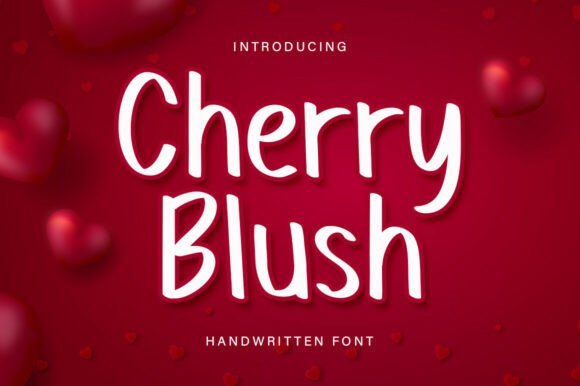
Love at First Sight: Discovering the Enchanting Cherry Blush Font
As a designer, have you ever stumbled upon a font that instantly sparks romance and whimsy? For me, that moment came when I laid eyes on the beautiful Cherry Blush Font. Its soft, rounded strokes and gentle lean immediately captured my heart, and I knew I had to learn more about this charming typeface.
The Cherry Blush Font is a delightful handwriting typeface designed to evoke the essence of romance and sweetness. Perfect for Valentine’s Day projects, feminine branding, and wedding stationery, this font provides a cozy, intimate feel that works beautifully on product packaging for bakeries or beauty brands. As a designer, the Cherry Blush Font is a valuable addition to your toolkit, allowing you to add a touch of love and whimsy to your designs.
Key Features of Cherry Blush Font
- Unique Characteristics: Whimsical, hand-drawn design with subtle texture and flair, perfect for feminine and vintage-themed projects
- Character Set: Includes over 200 glyphs, including uppercase and lowercase letters, numbers, and punctuation marks
Designer Review: Cherry Blush Font
Overall, I think the Cherry Blush Font is a lovely addition to any design project. The font’s ✨ whimsical feel and soft color palette make it perfect for feminine or vintage-themed designs. The font’s curves and rounded edges give it a friendly, approachable vibe that’s hard to resist.
- ✨ Unique and playful letterforms that add character to any design
- ✨ A wide range of language support, making it suitable for global projects
- ✨ High-quality vector graphics for crisp, clear rendering
However, there are a few limitations to consider. The font’s ✨ delicate nature can make it prone to readability issues in smaller font sizes or at a distance. Additionally, the font’s ✨ intricate details can be overwhelming in certain contexts, making it difficult to pair with other fonts or design elements.
- ⚠️ Limited legibility in smaller font sizes or at a distance
- ⚠️ Can be overwhelming in complex designs or with bold typography
Overall, I would recommend the Cherry Blush Font for projects that require a touch of whimsy and femininity. With careful consideration of its limitations, it can be a great addition to your design toolkit.
Tips for Getting the Most Out of Cherry Blush Font
1. Use Cherry Blush Font for feminine and elegant designs.
2. Pair Cherry Blush Font with bold fonts for contrast.
3. Use Cherry Blush Font for titles and headings.
2. Fashion and beauty branding.
3. Feminine and elegant product labels.
Alternatives to Cherry Blush Font